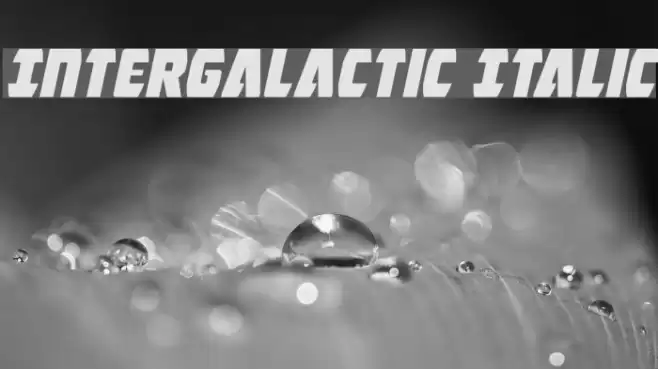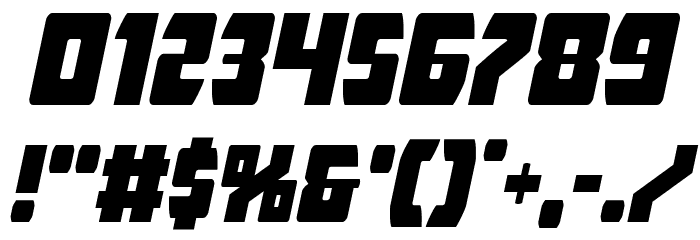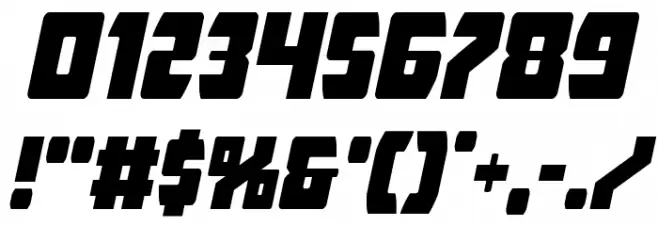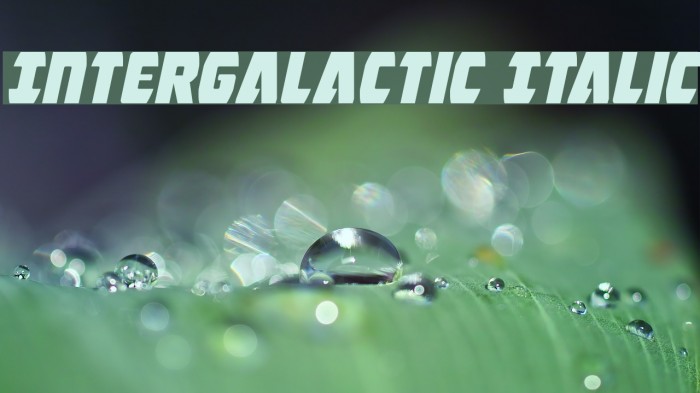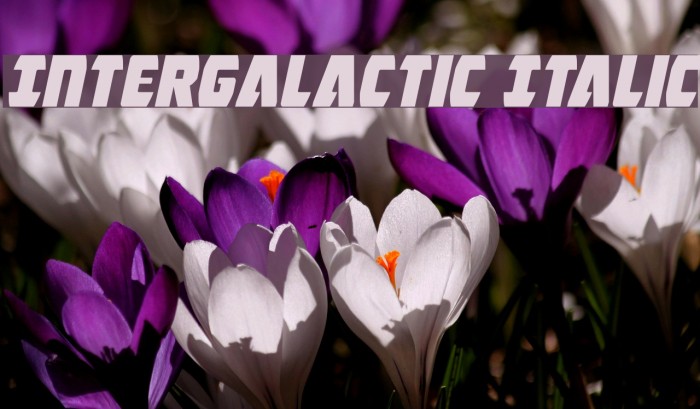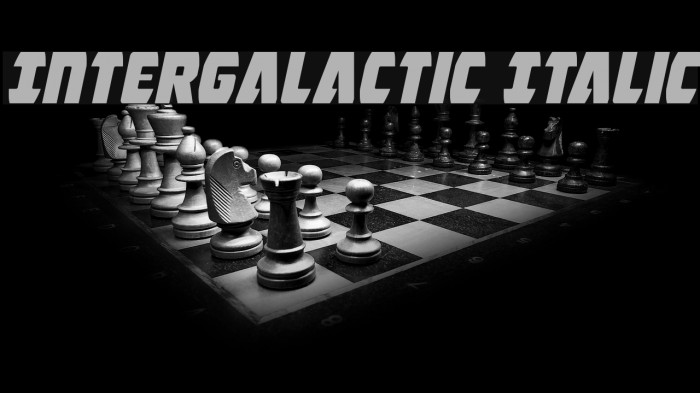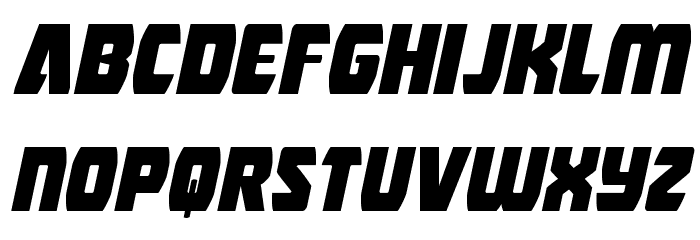
Intergalactic Italic Font
Intergalactic Italic Description
This font features a bold, futuristic design with a strong italic slant, giving it a dynamic and forward-moving appearance. The characters are wide and robust, with angular cuts and sharp edges that convey a sense of speed and modernity. The uppercase and lowercase letters maintain a consistent style, with the lowercase slightly smaller but equally bold. Numbers are equally striking, with a uniform thickness that matches the letters. Special characters are designed to complement the overall aesthetic, maintaining the same angular and bold characteristics. This font is ideal for projects that require a modern, high-impact look.
A bold, italic, futuristic font with angular cuts and a dynamic style from Uncategorized fonts.
- Proposed Projects: Ideal for sci-fi themed designs, video game titles, technology branding, and futuristic posters.
- Width: Expanded